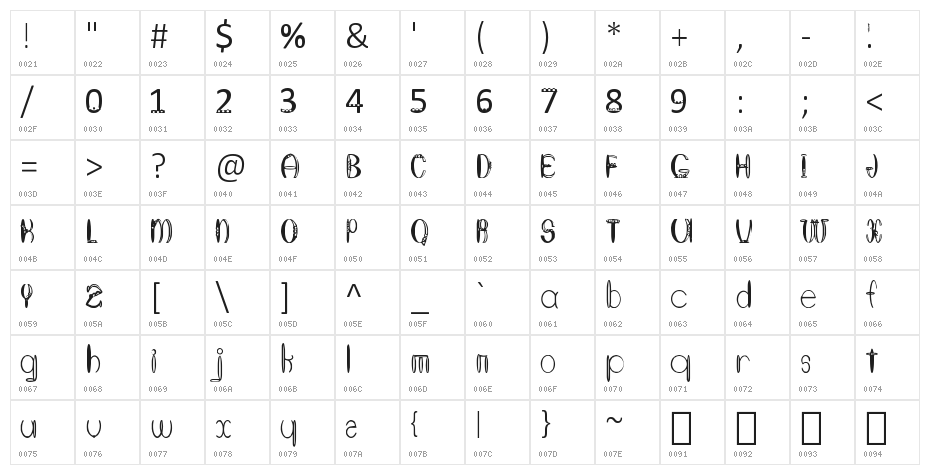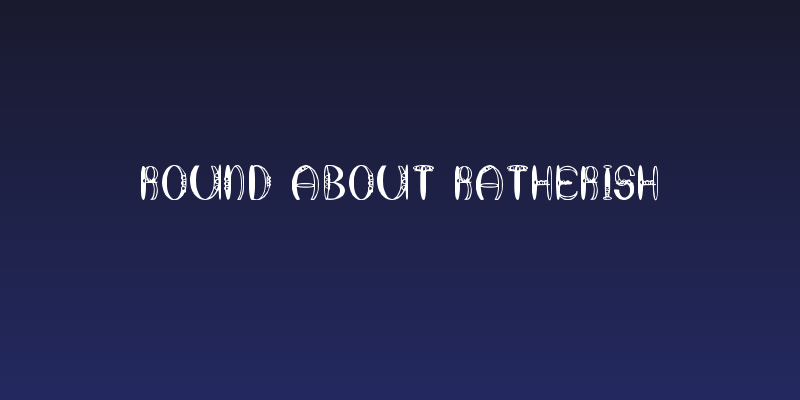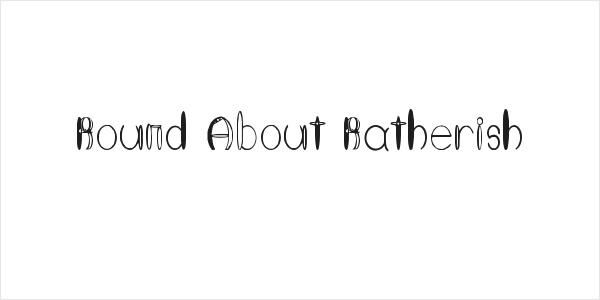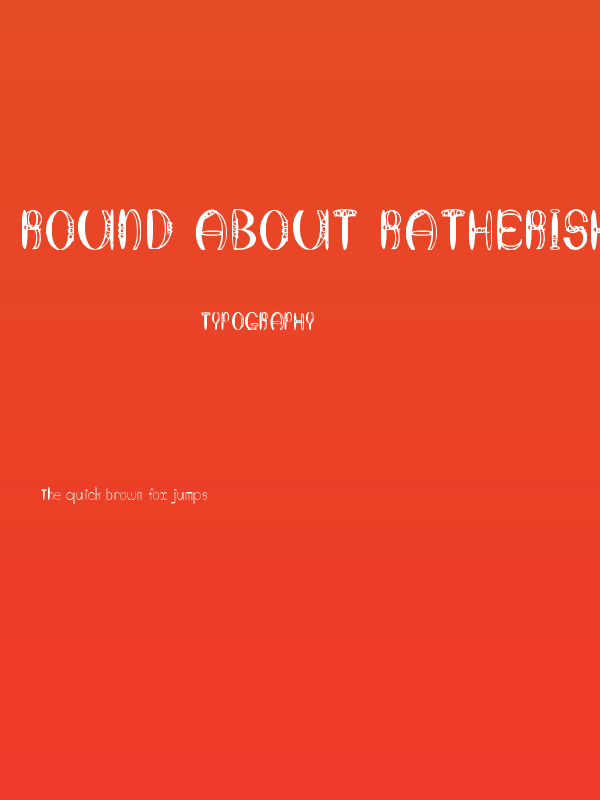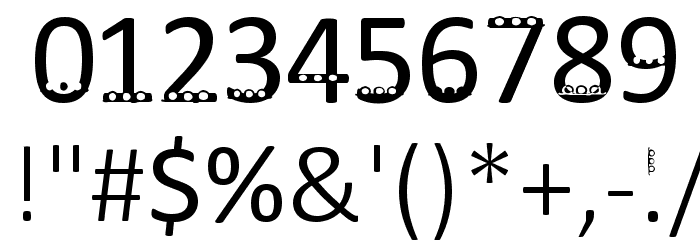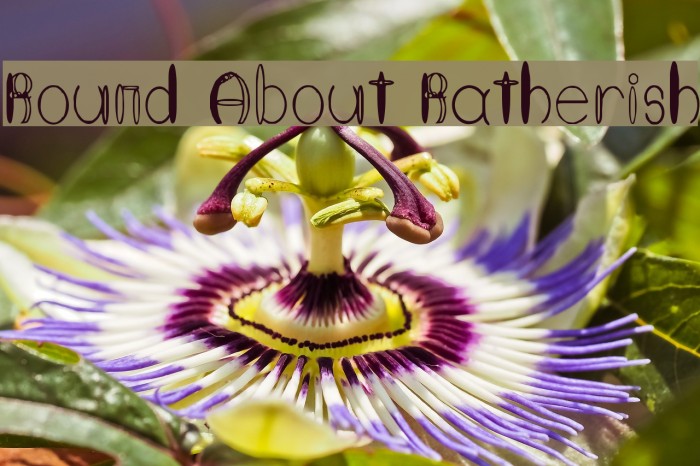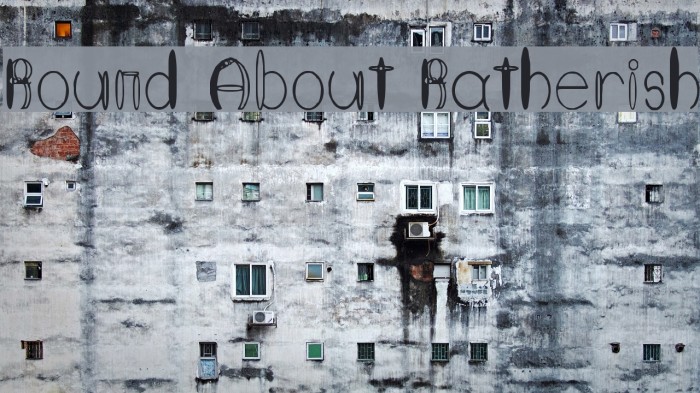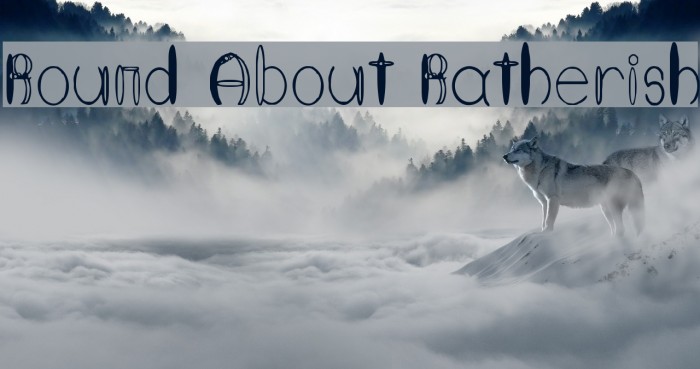
Round About Ratherish Font
Round About Ratherish Description
This playful and whimsical font features a unique blend of decorative elements and bold strokes. Each character is adorned with circular and dot-like embellishments, giving it a quirky and artistic feel. The uppercase letters are particularly striking, with varying thicknesses and creative loops that add a sense of movement and fun. The lowercase letters maintain a more consistent stroke width, yet still carry the same playful spirit. Numbers and special characters follow suit, incorporating the same decorative style. This font is perfect for projects that require a touch of creativity and individuality.
| Proposed Projects | Ideal for children's books, creative posters, playful branding, and artistic invitations. |